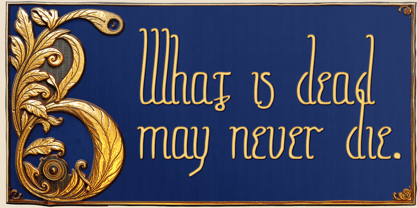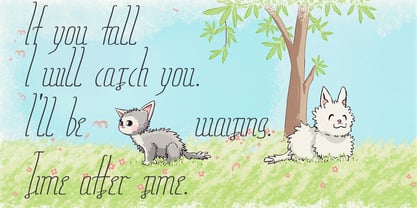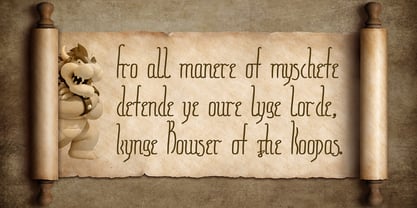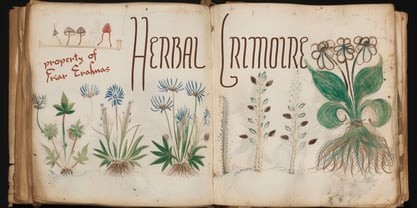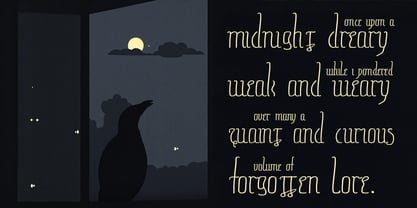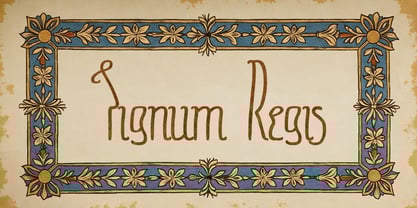
Signum Regis
by Second Circle Font Foundry
The Signum Regis Font Family was designed by Gregory Stevens and published by Second Circle Font Foundry. Signum Regis contains 6 styles and family package options.
Signum Regis is a tall, narrow, ornamental typeface inspired by the signatures of medieval European kings and emperors. It has a low x-height with exaggerated swooping ascenders and descenders, producing a distinctive medieval aesthetic. Its ornamental curls and swashes can be modified by an extensive set of special ligatures that reflect the flourishes of scribal handwriting.
Signum Regis is a display font intended for larger sizes: titles, headers, or oversized self-important signatures (like the kings of old). You can manipulate the line-height to create ornamental overlap between ascenders and descenders of the lines above and below, and you can even fit smaller text into the gaps between ascenders because of the low x-height. (Check out some examples of this in our sample images.) The difference in thickness between light and regular, and between regular and bold, was chosen specifically for you to be able to mix different font sizes while keeping a consistent stroke thickness.
Signum Regis is a perfect choice for royal proclamations, pamphlets, scrolls, and other accessories for LARPing, cosplay, RPG campaigns, and other medieval-themed worldbuilding project, or any time you want your signage to have that extra stylish flourish!